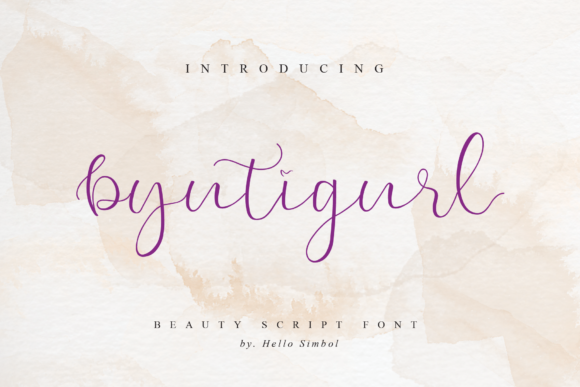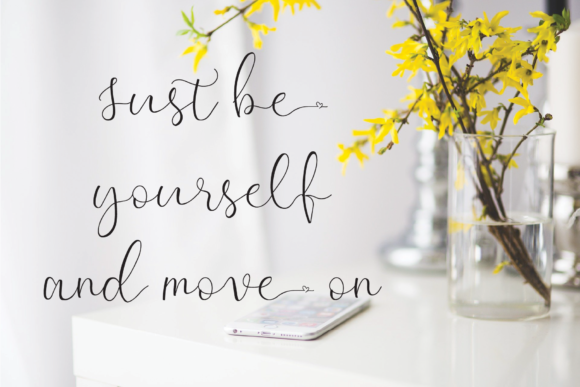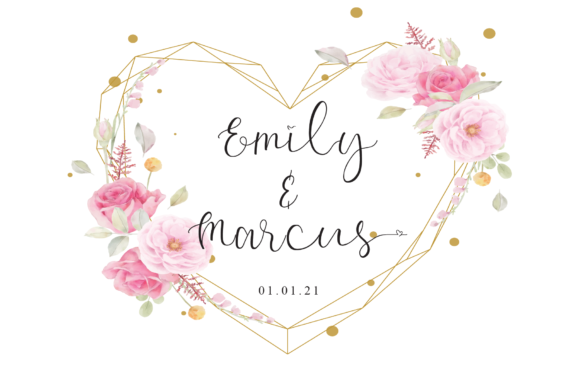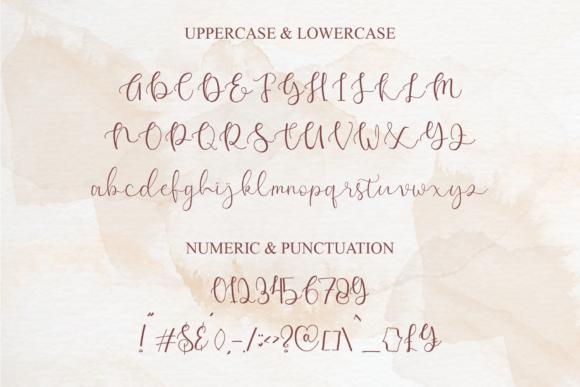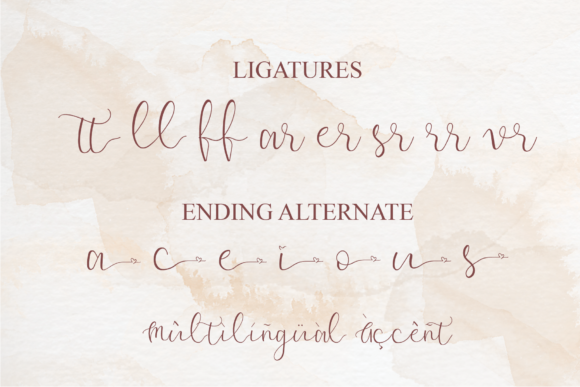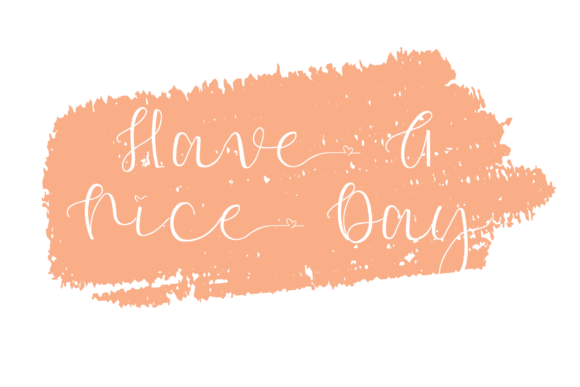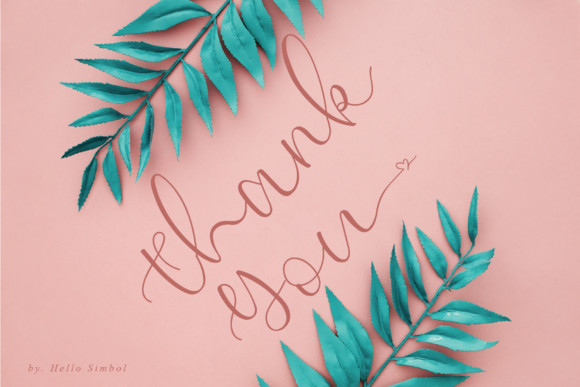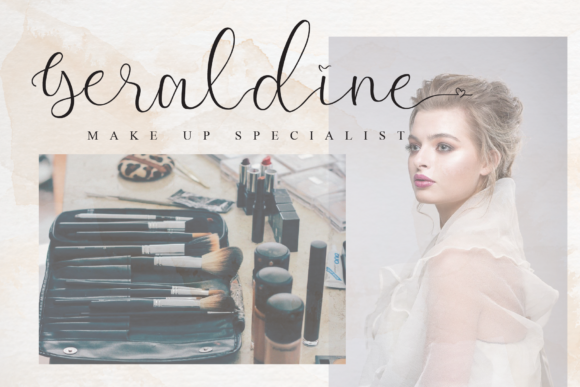
Byutigurl Font
About Byutigurl Font
Byutigurl is a romantic and delicate handwritten font that exudes elegance and charm. With its graceful and flowing letterforms, it is the perfect choice for creating eye-catching logos, branding materials, and quotes that capture attention.
The beauty of Byutigurl lies in its unique and beautiful letter designs. Each letter is carefully crafted with a delicate touch, showcasing intricate details and graceful curves. This attention to detail adds a sense of sophistication and refinement to your designs, making them visually appealing and memorable.
Byutigurl’s romantic and delicate style makes it well-suited for a variety of design projects. Whether you’re creating a logo for a luxury brand, designing wedding invitations, or crafting inspirational quotes for social media, this font adds a touch of elegance and femininity to your designs.
The versatility of Byutigurl allows it to be used in various branding and design contexts. Its delicate and intricate letterforms create a sense of uniqueness and exclusivity, making it an excellent choice for high-end and luxurious brands. At the same time, its romantic and graceful nature lends itself well to projects that evoke emotions, such as wedding stationery or heartfelt quotes.
With Byutigurl, every letter becomes a work of art, allowing you to create designs that stand out and leave a lasting impression. Its PUA encoding ensures easy access to all of its glyphs and swashes, giving you the freedom to experiment and customize your designs. Whether you want to add decorative flourishes, elegant swashes, or alternate letterforms, Byutigurl provides you with the tools to bring your creative vision to life.
In summary, Byutigurl is a romantic and delicate handwritten font that adds an enchanting touch to your designs. With its unique and beautiful letterforms, it is well-suited for creating eye-catching logos, branding materials, and quotes that leave a lasting impression. Let Byutigurl bring elegance and charm to your designs and make them come alive with its delicate and captivating style.